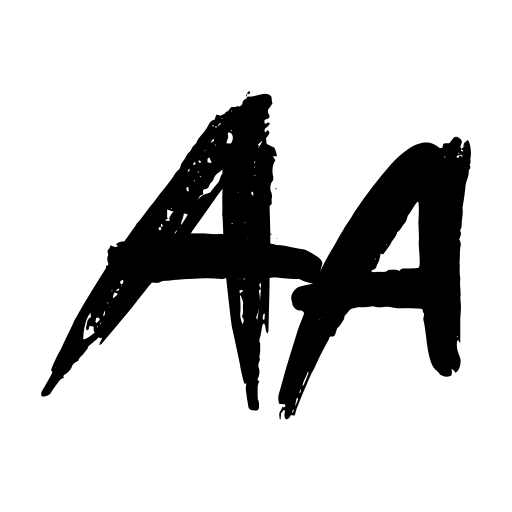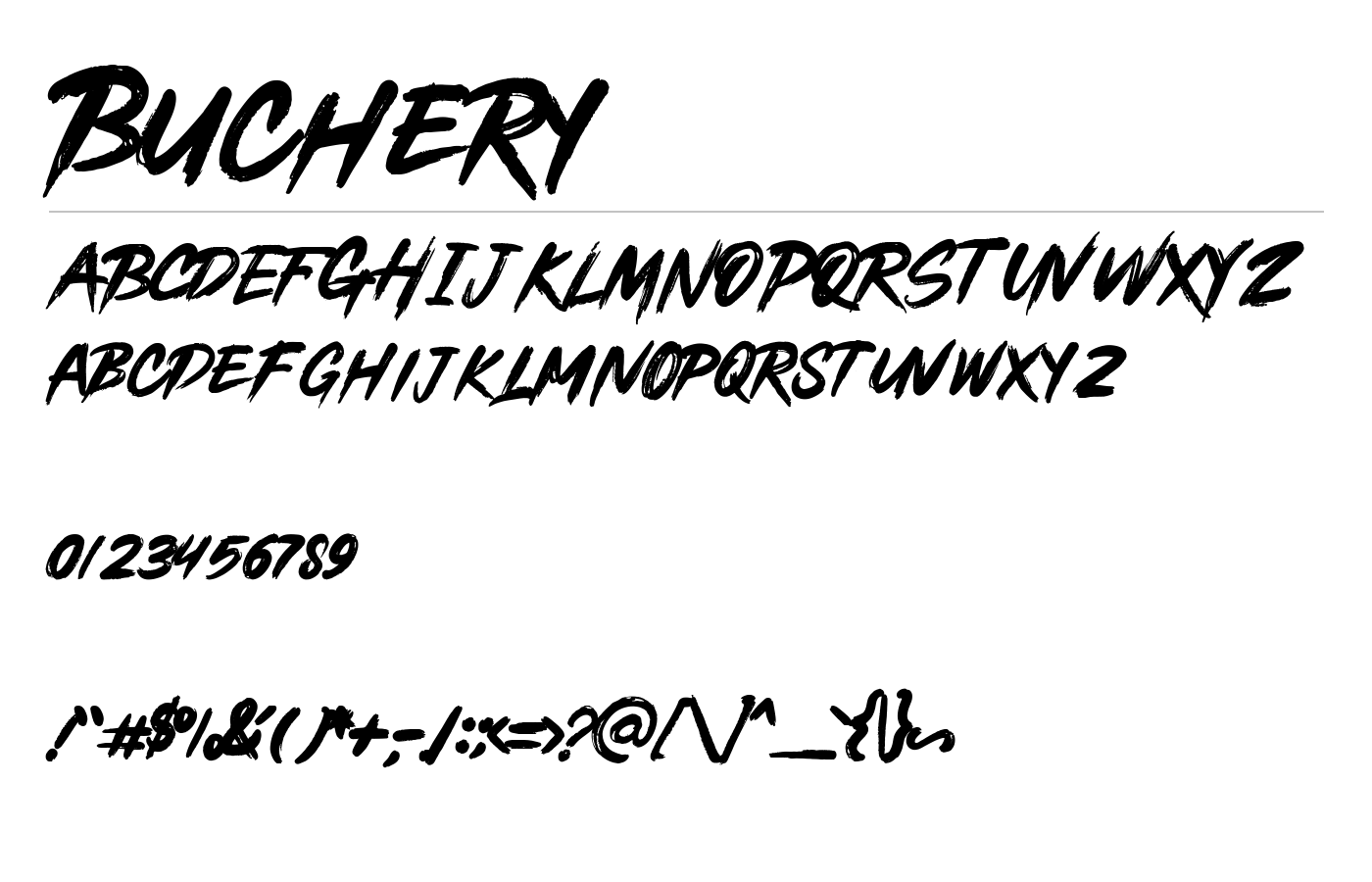
Buchery is a bold, brush-style script font that captures a dynamic and edgy handwritten feel with rough, textured strokes and irregular edges. Its energetic letterforms and strong presence make it ideal for creative branding, posters, and headlines where a sense of spontaneity and artistic flair is desired. This font works well for designs aiming to convey raw emotion, modern coolness, and expressive personality.
Buchery Font
About Buchery Font